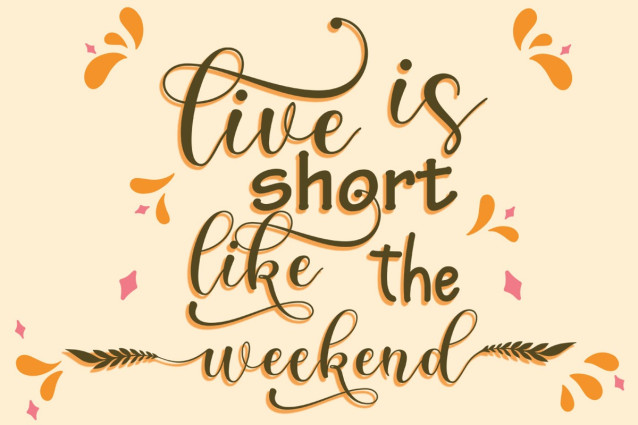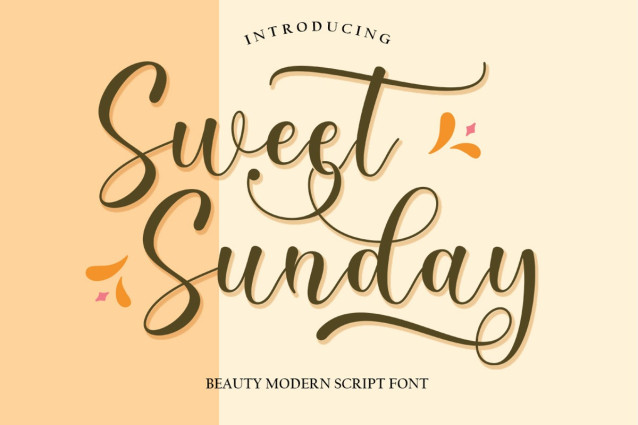
Sweet Sunday Font
Sweet Sunday Font –  This beautiful script is for those who need elegance and style for their designs and is perfect for wedding invitations, saving date cards and feminine branding.
Laquittea has 2 styles Regular and Bold includes a full set of Basic Uppercase and Lowercase Characters, Numbers and Punctuation. Also contains ligatures and many alternative styles to perfectly recreate natural calligraphy (check the preview to see them all).